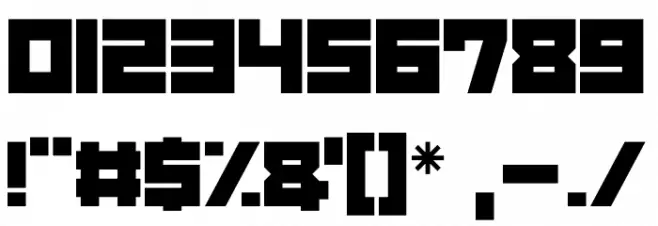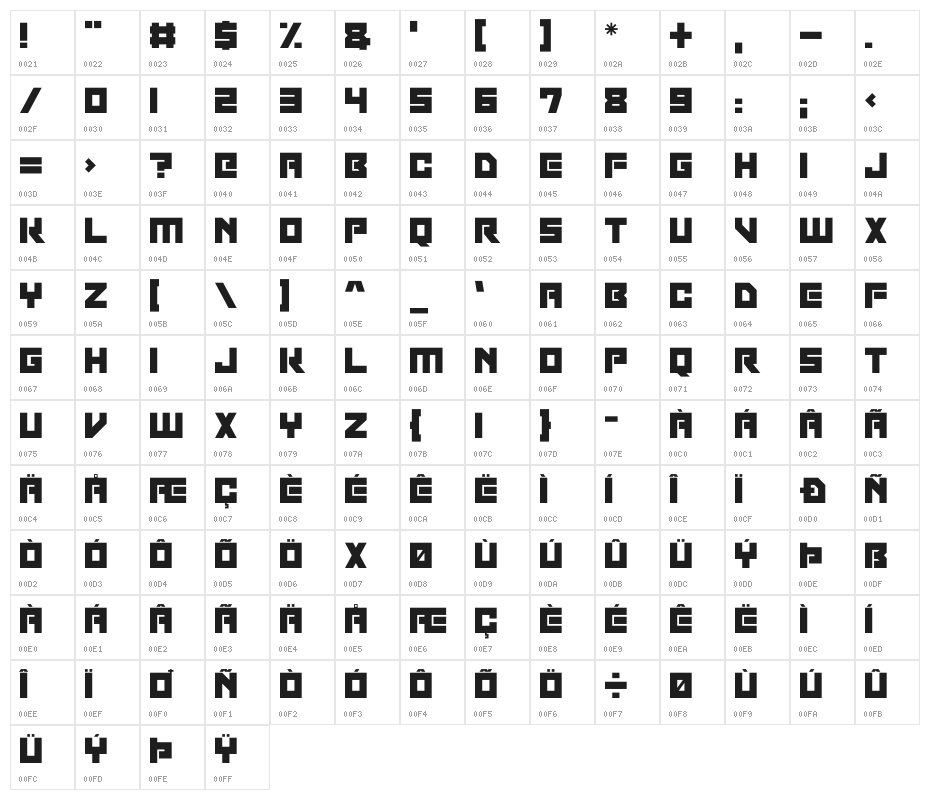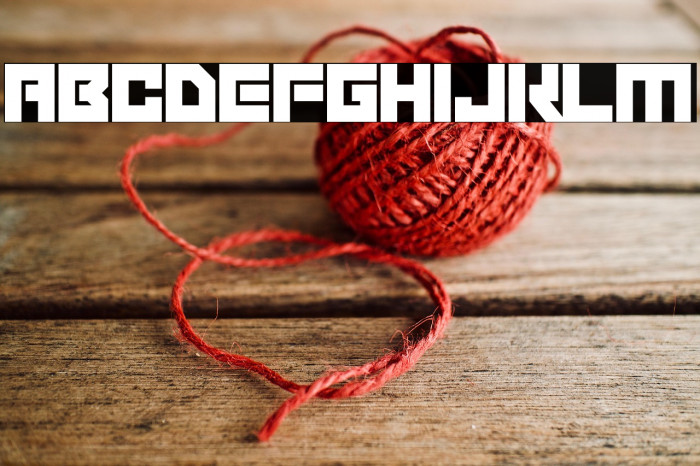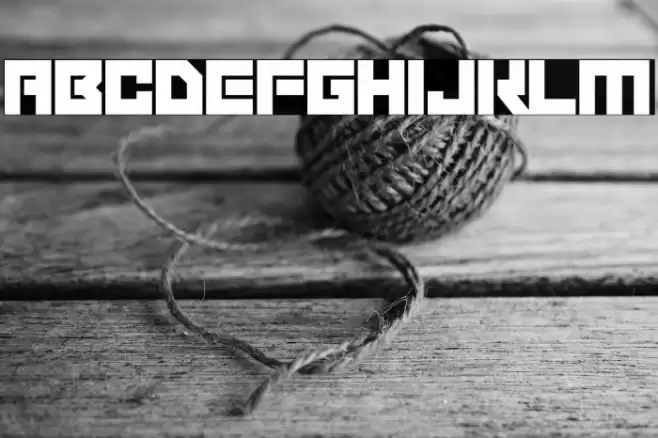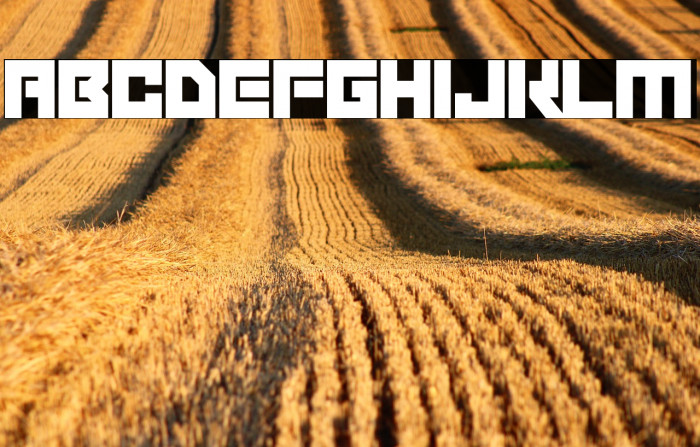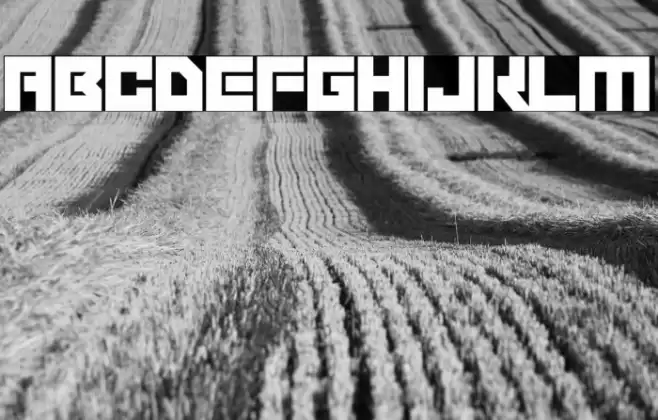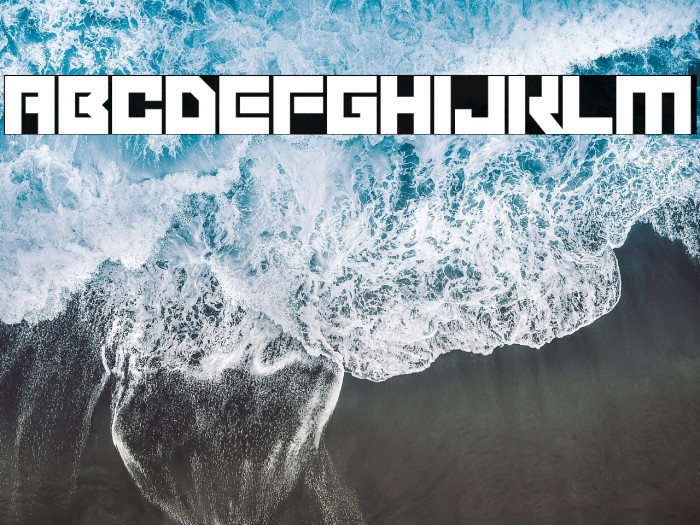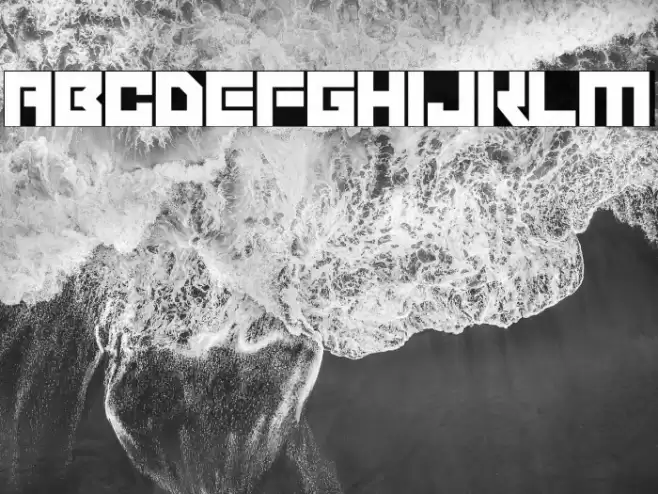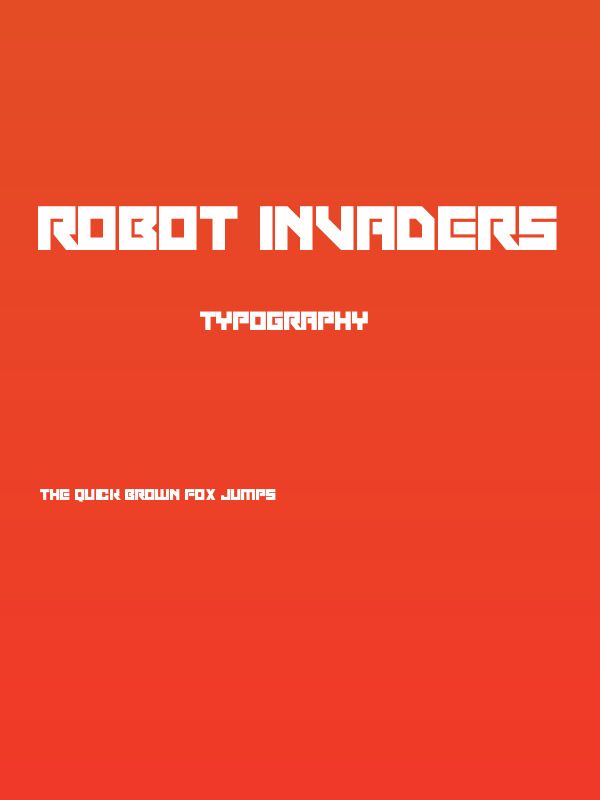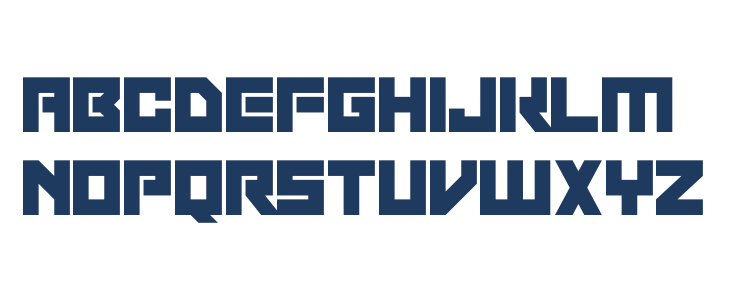
Robot Invaders Font
Robot Invaders Description
This font features a bold, futuristic design with a geometric and angular aesthetic. Each character is constructed with sharp, straight lines and blocky forms, giving it a robotic and mechanical feel. The uppercase and lowercase letters maintain a consistent style, with unique cutouts and angles that add to its distinct appearance. The numerals and special characters follow the same design principles, ensuring uniformity across all glyphs. This font's strong visual impact makes it ideal for projects that require a modern, tech-inspired look.
| Proposed Projects | Ideal for video game titles, tech branding, sci-fi posters, and digital interfaces. |